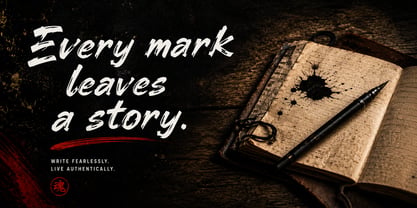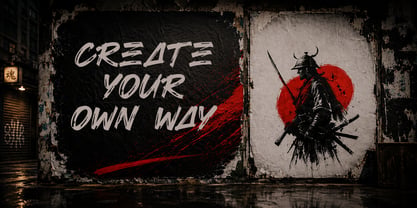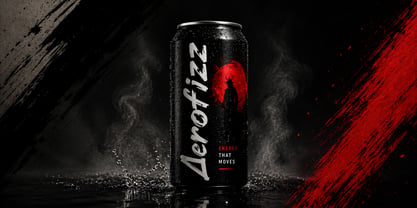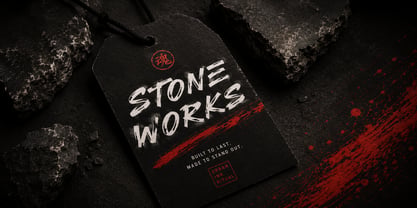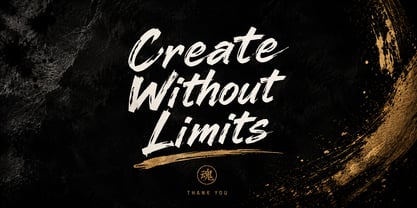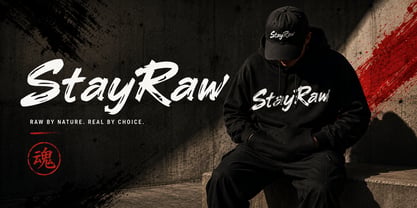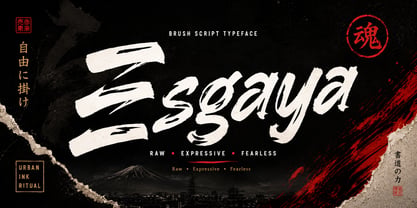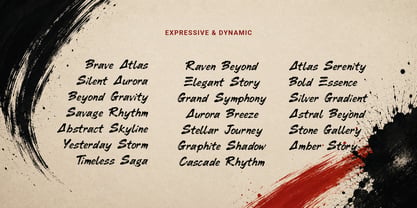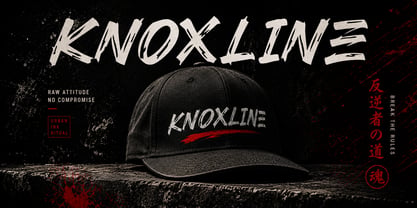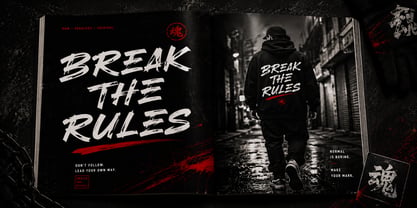
Esgaya
by Solutype
The Esgaya Font Family was designed by Jony Suharsono and published by Solutype. Esgaya contains 1 styles. More about this family
Esgaya is a bold handcrafted brush script font that captures the energy of authentic brush strokes and modern street culture. Designed with expressive textures, dynamic movement, and a naturally painted appearance, Esgaya brings a raw yet premium aesthetic to every project.
Perfect for logos, branding, apparel, streetwear, product packaging, posters, album covers, social media graphics, and editorial headlines, Esgaya delivers powerful visual impact while maintaining excellent readability. Its handcrafted character gives every word confidence, attitude, and personality, making it an ideal choice for designers who want typography that stands out.
Whether you're creating a bold brand identity, eye-catching merchandise, or high-impact promotional materials, Esgaya helps transform ordinary text into expressive visual statements.